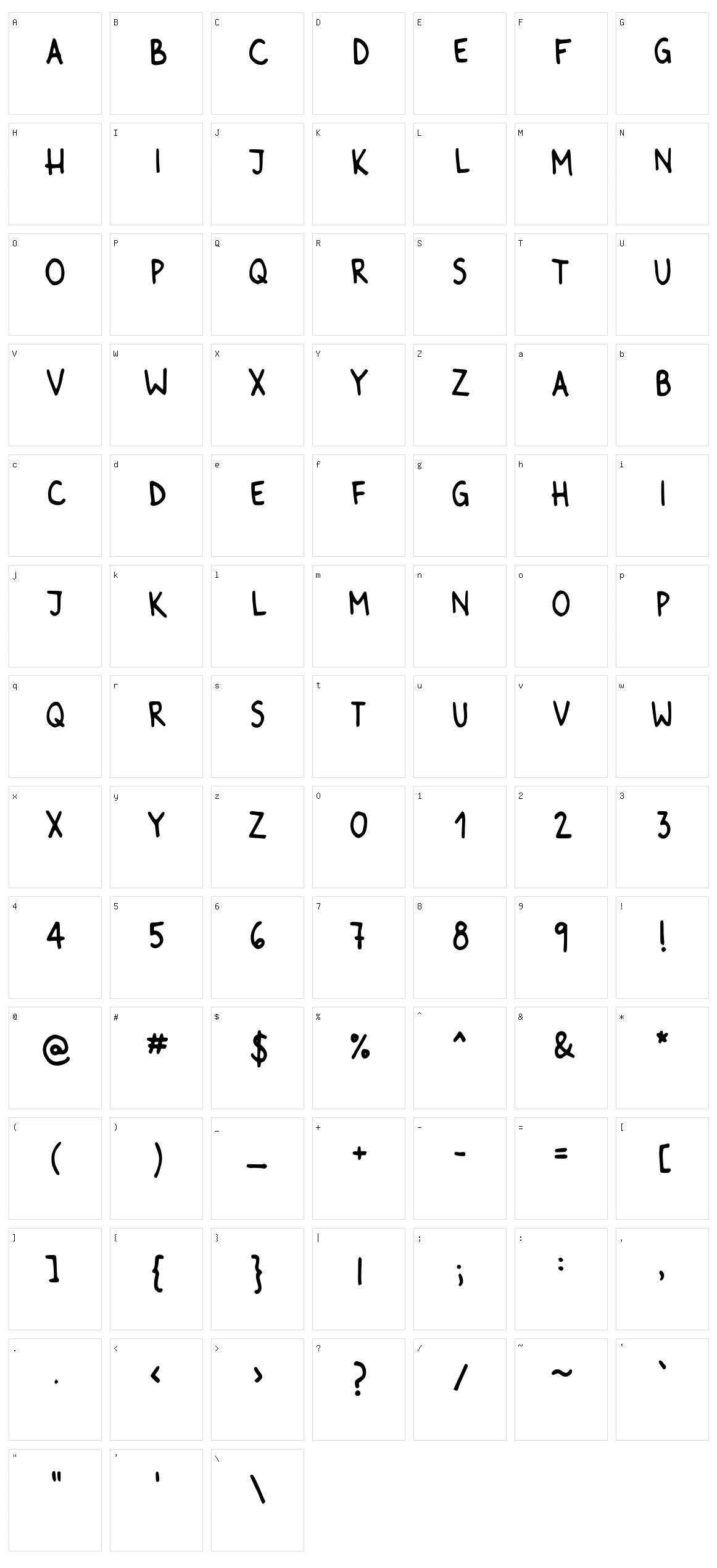
A non aggressive font of well done caps, complete punctuation and numbers, incredibly easy to read. For English, German, Spanish, French, Norwegian, Portuguese, Slovenian and anything in between. Lower cases are totally different and you'll even find the randomized characters option for a superb result on text blocks or simple lines.